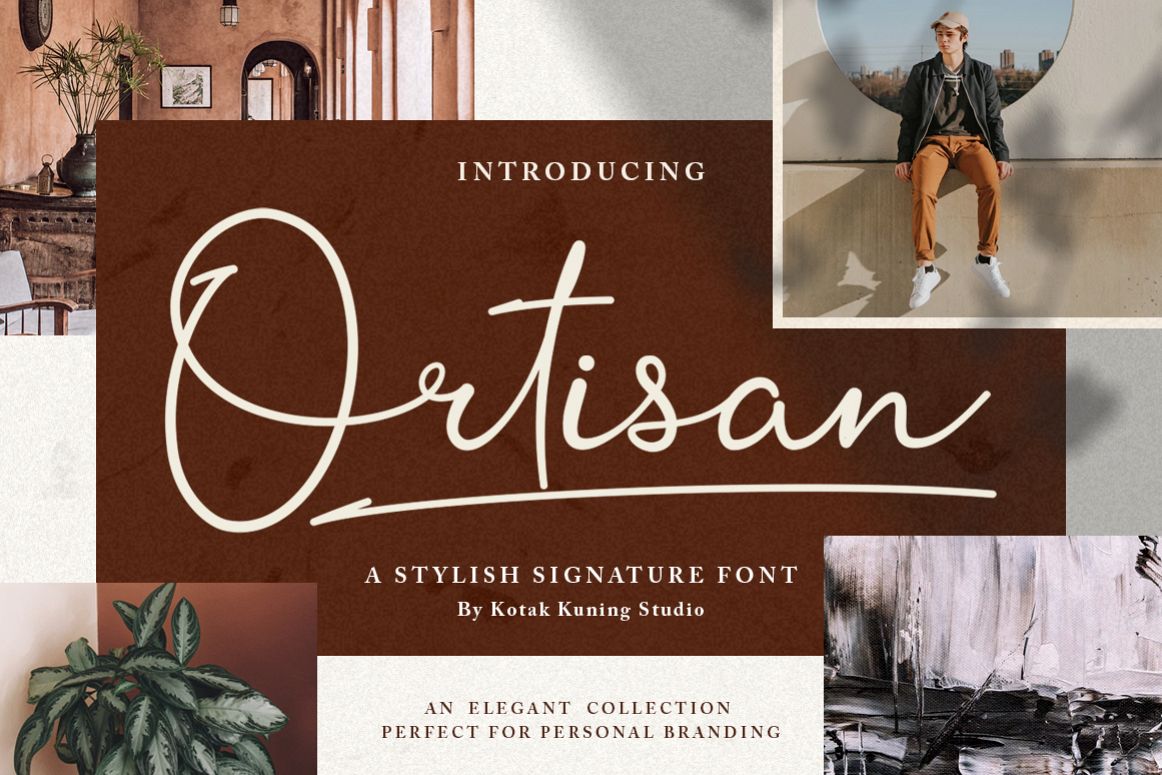
Signature Script - Ortisan Font
Introducing the new Ortisan Signature font - a handwritten signature script with a natural & stylish flow. This collection of scripts is perfect for branding.
The font is the great choice for the watermark on photography, signature or signature logo design, quotes, album cover, business card, and many other design projects. Ortisan Signature is here to elevate your work to the highest level. We keep this font looks elegant, classy, readable, stylish, catchy and easy to use.
With built-in Opentype features, this script comes to life as if you are writing it yourself.
• includes capital and lowercase letters, and Ligatures
• Numbers + punctuation
• Foreign language support